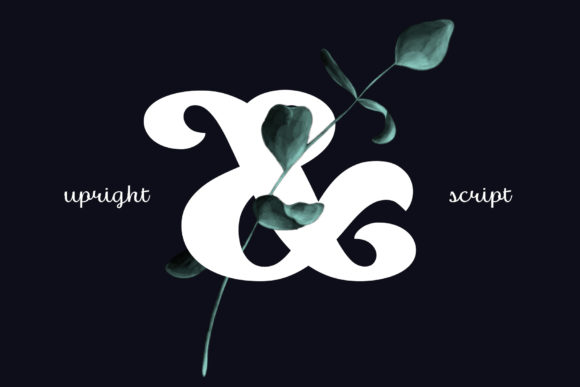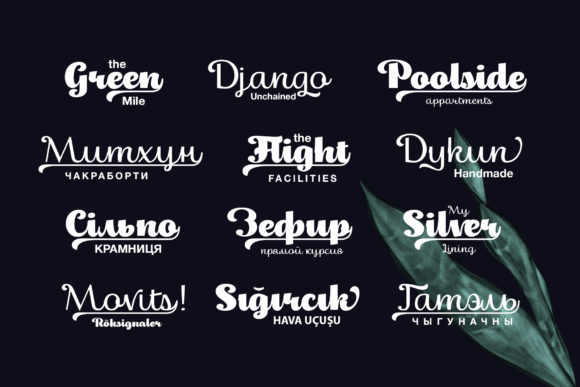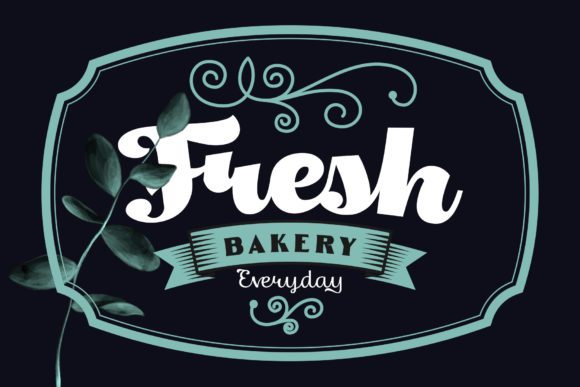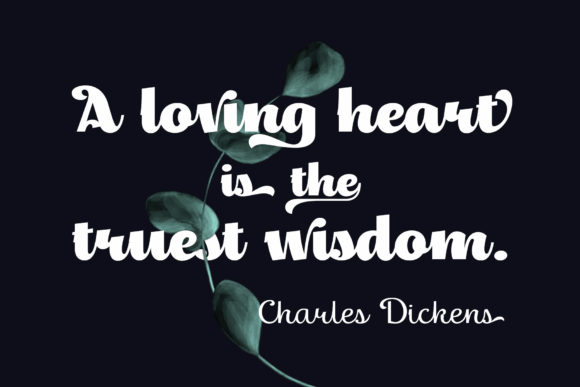
HomeScript FontsThephir Font Script Fonts Thephir Font FacebookXPinterestWhatsApp Thephir Font Poster 2 Thephir Font Poster 3 Thephir Font Poster 4 Thephir Font Poster 5 About Thephir Font Thephir is a bold and slightly strange script. It will add a unique feel to any design project! DOWNLOAD NOW People also explored Red Satanic Font Smooth Font Bamboo Font Blackbox Font Rastie Font Beckham & Sophia Font Prestice Font Roughshod JNL Font Rosella Tea Font 291 0 TagsThephir Font Previous articleSweet Birthday FontNext articleChasy Font LEAVE A REPLY Cancel reply Comment: Please enter your comment! Name:* Please enter your name here Email:* You have entered an incorrect email address! Please enter your email address here Website: Save my name, email, and website in this browser for the next time I comment. Personal Use Free Bukan Personal Use Free Read more about this font Samureix Personal Use Free Read more about this font Cherry Ai Personal Use Free Read more about this font Mallvirra Personal Use Free Read more about this font BLOG Top 10 Handwritten Fonts That Elevate Your Designs Top 10 Handwritten Fonts That Will Elevate Your Designs Handwritten fonts bring a warm, personal touch to every creative project. Whether you're designing logos, invitations,... Best Fonts for YouTube Videos: Make Your Thumbnails Stand Out Using Fonts in Digital Marketing: Tips to Strengthen Your Brand Identity Where to Buy American Fonts Online in 2024